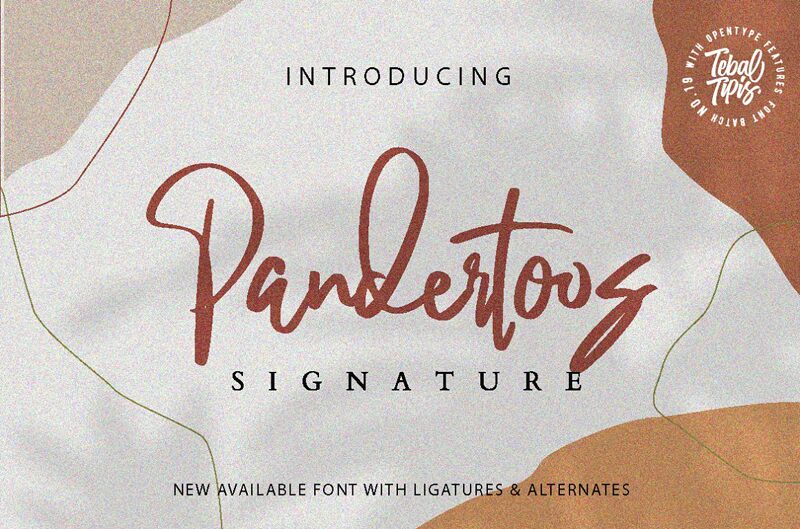
PandertoosSignature
Pandertoos Signature font by Tebaltipis Studio delivers a gentle handwritten appearance with effortless casual elegance. Featuring fluid motion and expressive character, it showcases thin smooth lines and rounded corners that give it its undeniably unique modern flair.
This free handwritten font will meet the design needs of books, magazines, blogs, social media posts, quotes, branding projects like logos and business cards as well as packaging designs.